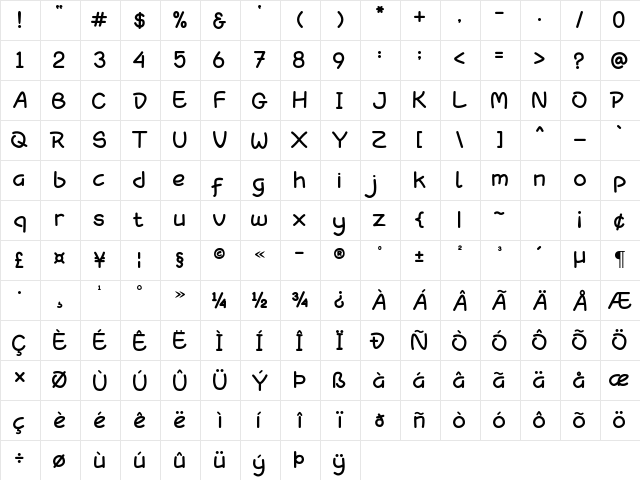
Madonnina Regular
Design Context for Madonnina Typeface
Madonnina is a composed and adaptable typeface that performs quietly and consistently across a wide range of design contexts.